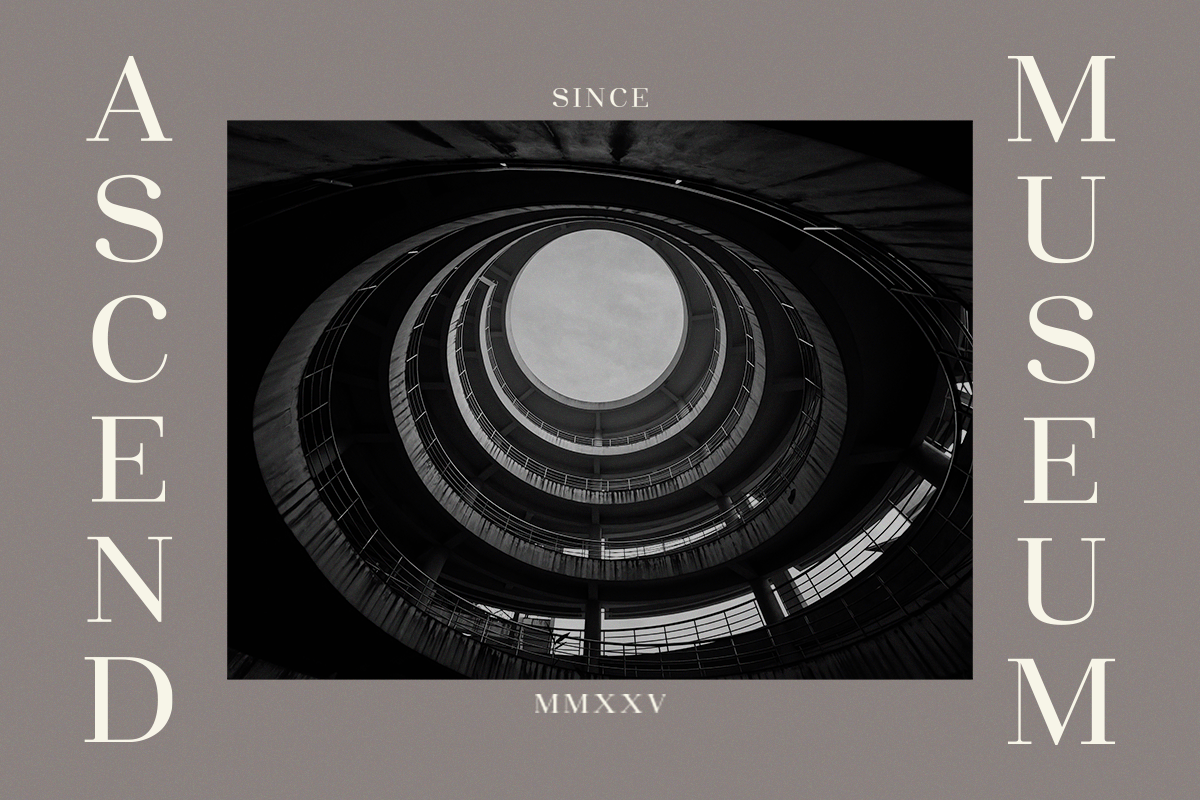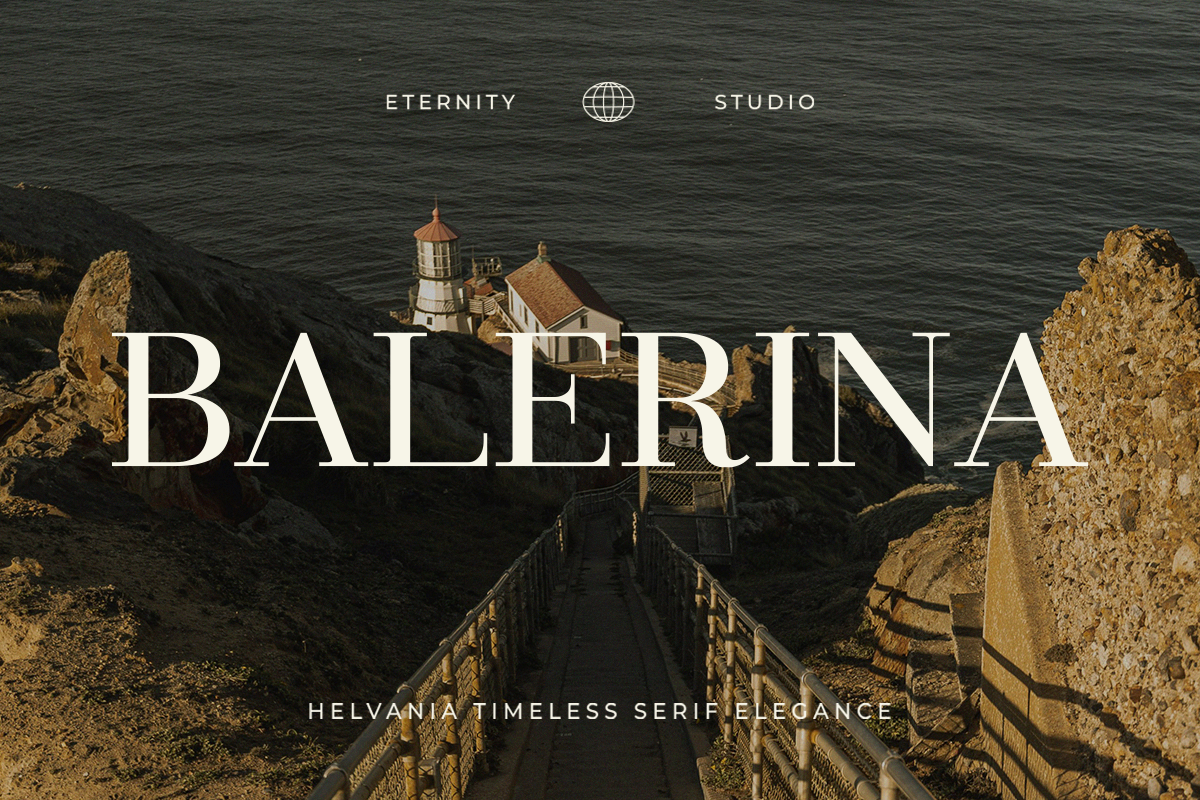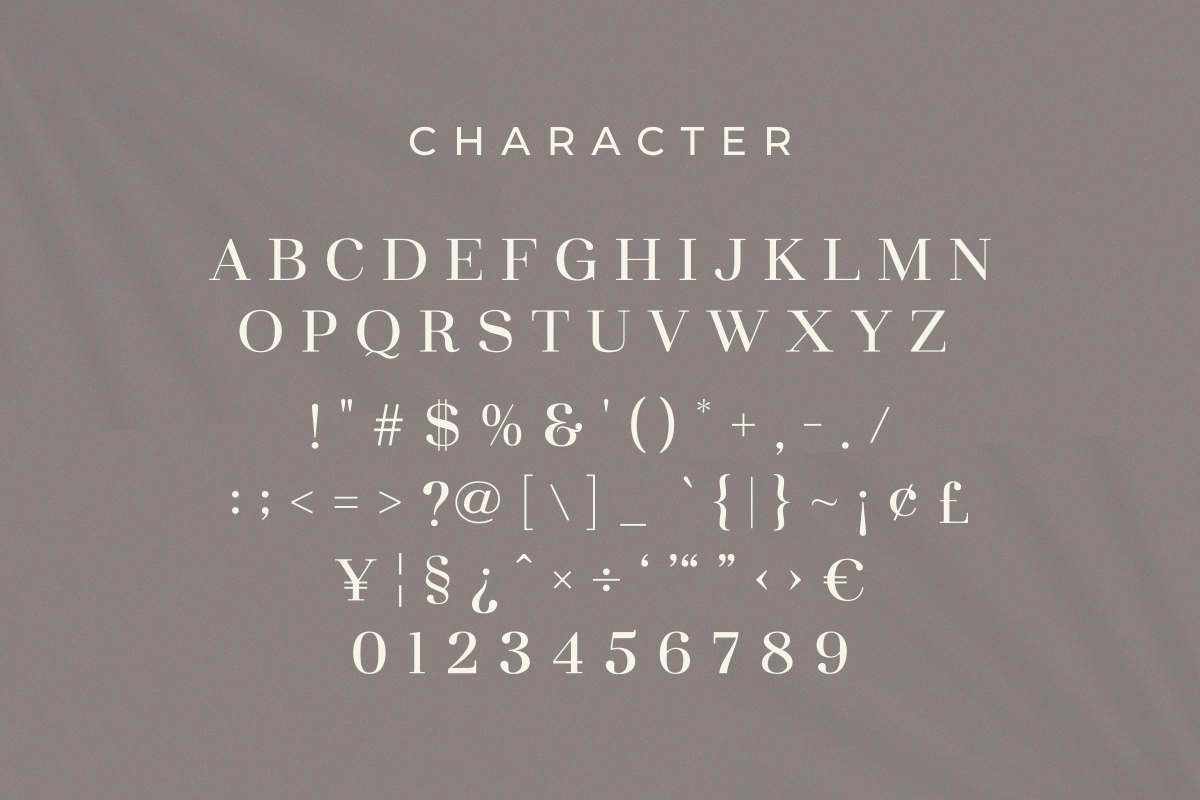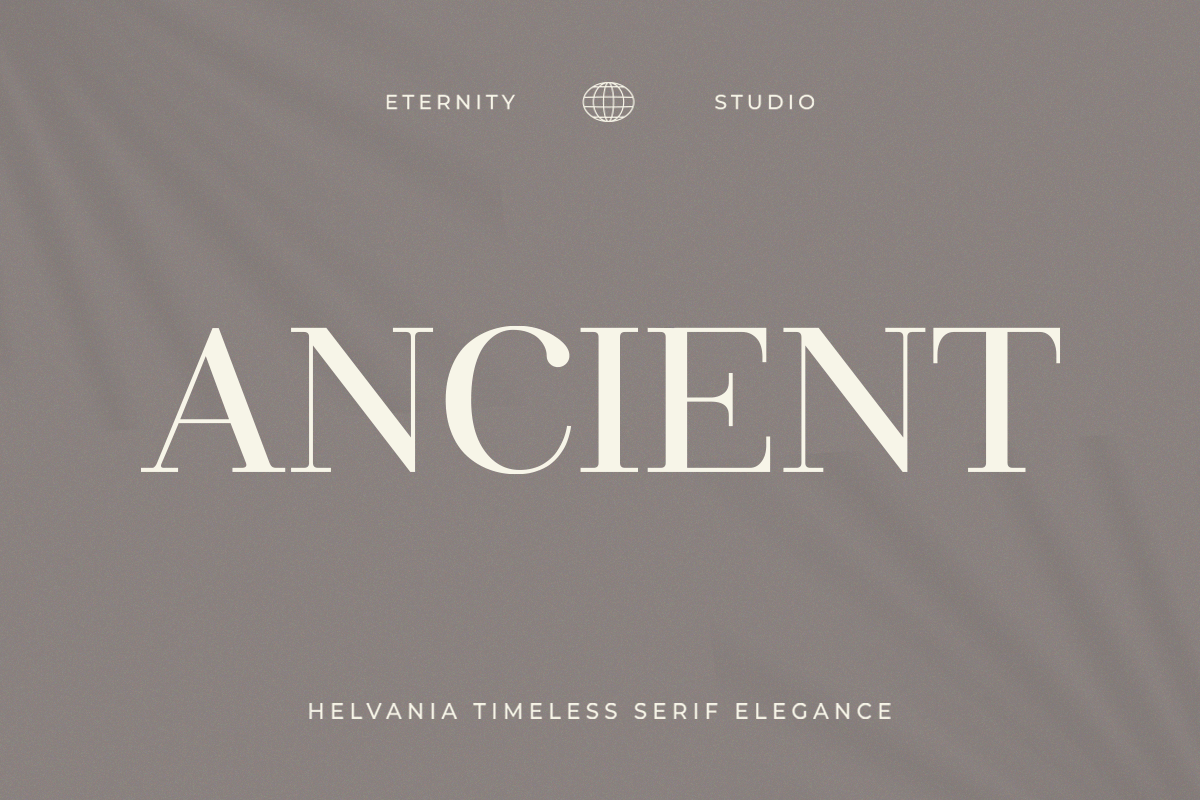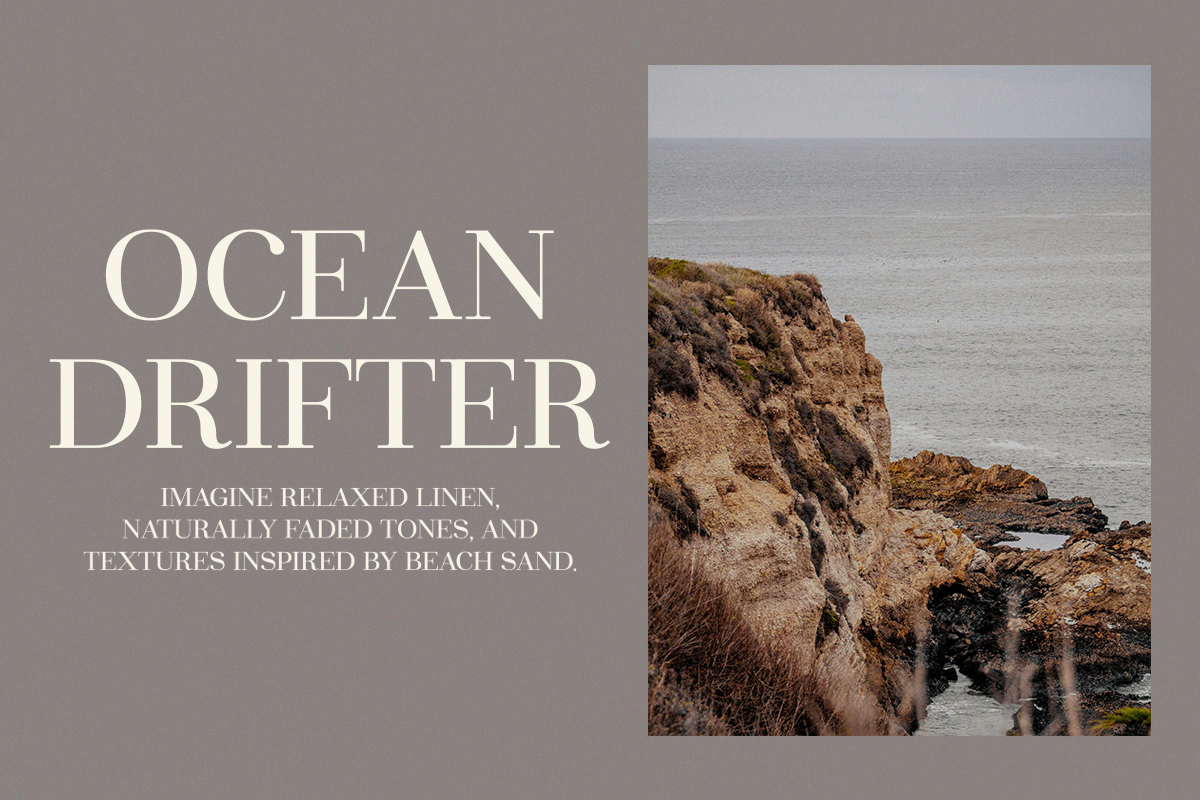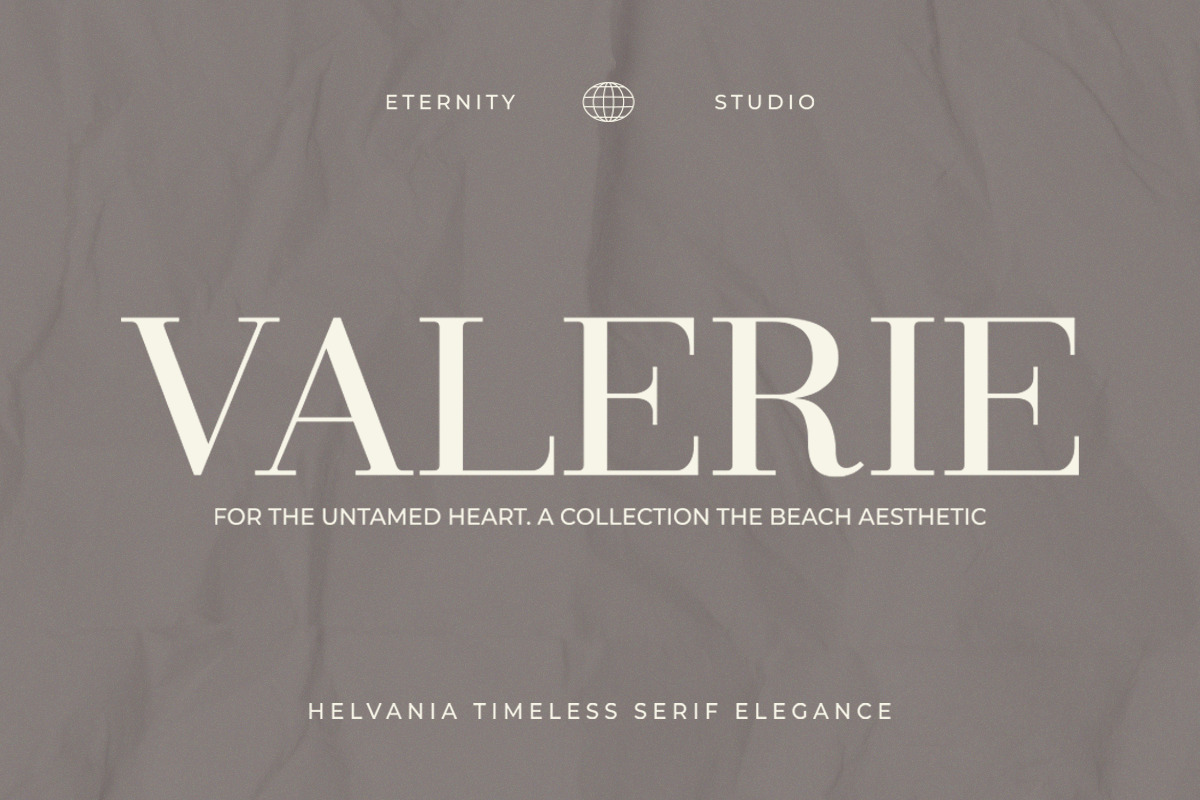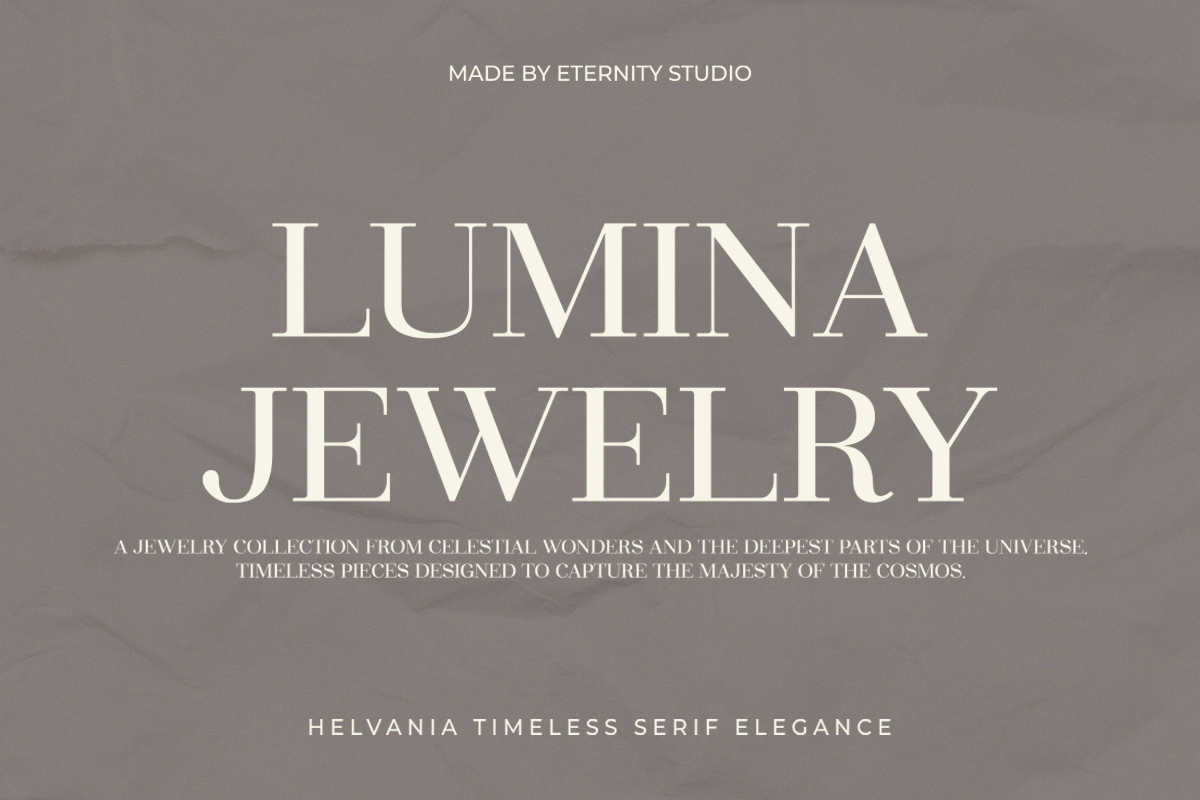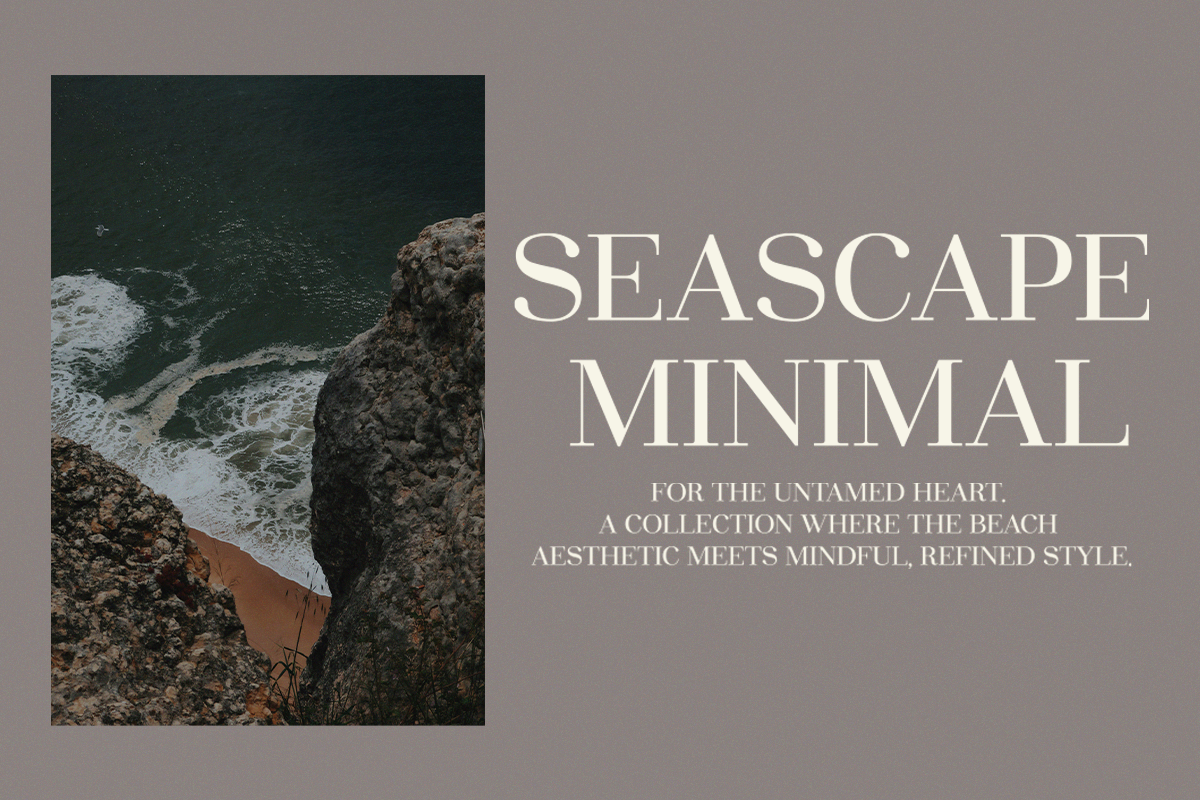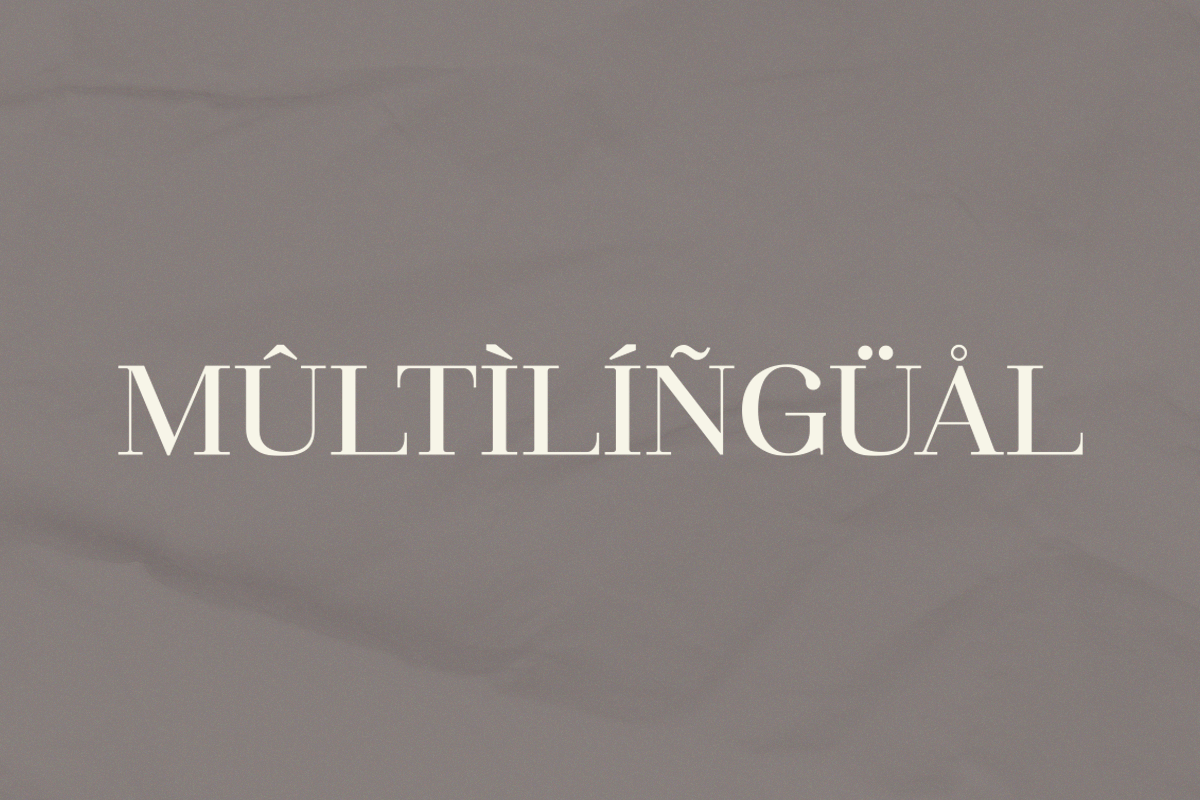
ET Helvania -Timeless Serif Elegance
ET Helvania – Timeless Serif Elegance
ET Helvania is a refined serif typeface crafted to embody timeless beauty and effortless sophistication. Featuring classic letterforms with modern, elegant detailing, this font delivers a graceful balance between tradition and contemporary style. Each character is designed with smooth curves, sharp serifs, and harmonious proportions, making ET Helvania a truly versatile typeface for high-end design work.
Perfect for luxury branding, editorial layouts, packaging, wedding stationery, logos, book titles, and social media visuals — ET Helvania brings a polished, premium look to any project. Its excellent readability and stylish personality make it ideal for both large headlines and refined body text.
Whether you're building a brand identity, designing a magazine, or elevating your creative presence, ET Helvania offers the timeless elegance your work deserves.
Bring classic sophistication into your designs with ET Helvania – Timeless Serif Elegance.